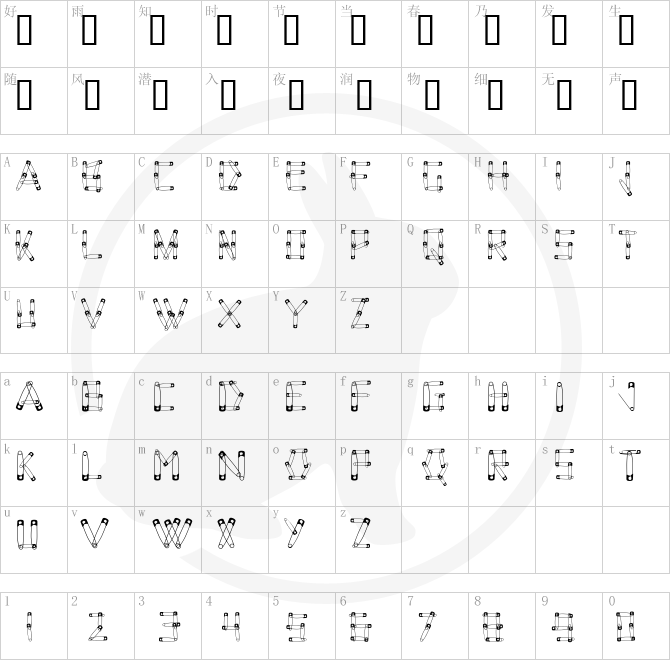
- Font Name:SafetyPinned
SafetyPinned.ttf is a very beautiful artistic font, SafetyPinned.ttf is widely used in the design and printing of various books and pictures,SafetyPinned.ttf has a strong visual impact,SafetyPinned.ttf is a commonly used font in newspapers, magazines and books, and is used in posters, e-commerce Poster design, store design, logo design, font design and other fields.SafetyPinned.